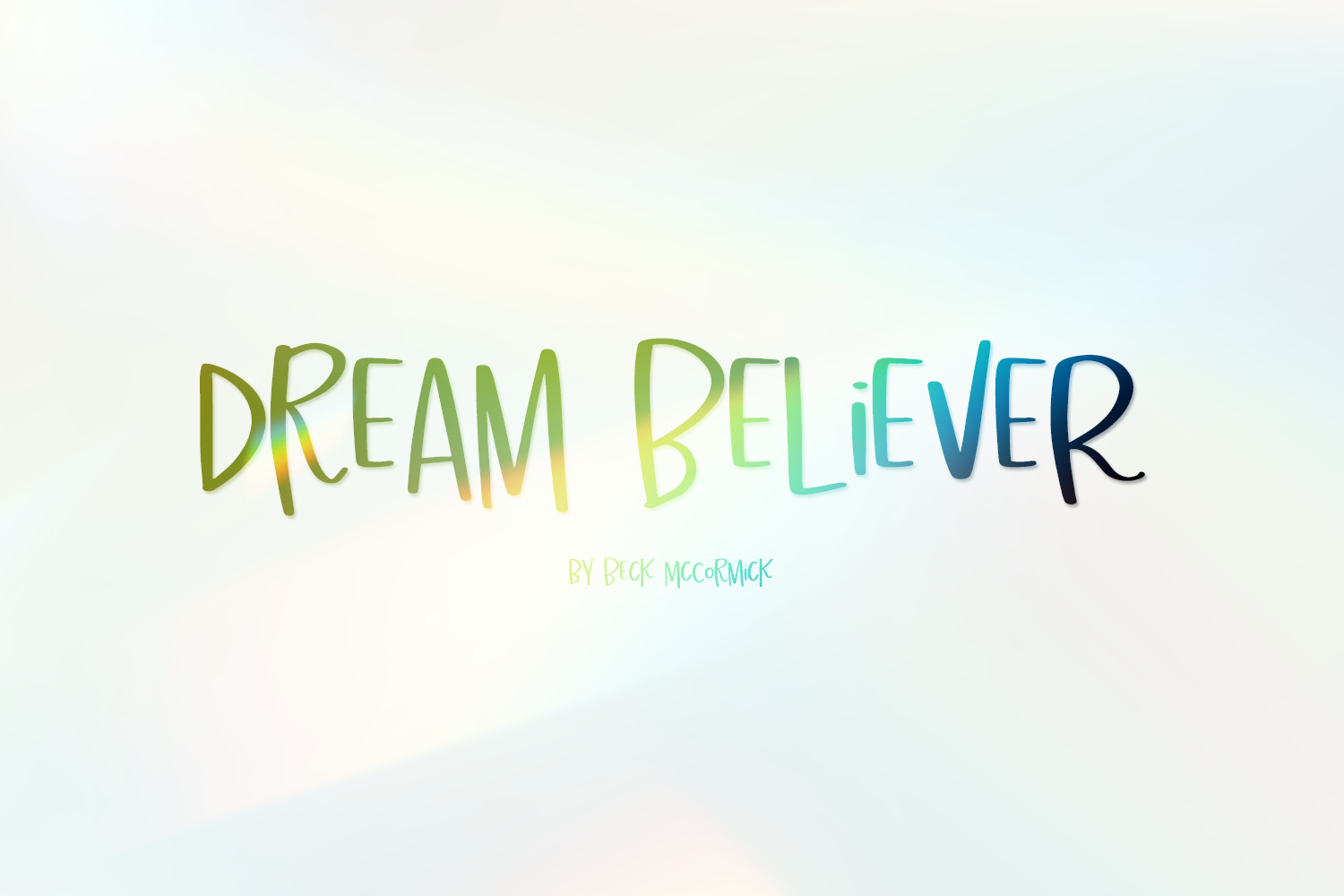
Say hello to Dream Believer, an all-caps sans font. Dream Believer is cute and quirky.
Dream Believer is best for:
- feminine, crafty projects with your Cricut or Silhouette machine, or your SVG design business
- farmhouse decor and crafts
- website design + website accents, blog design
- feminine graphic tee shirt design & other apparel
- full upper + lowercase characters (two caps sets of letters)